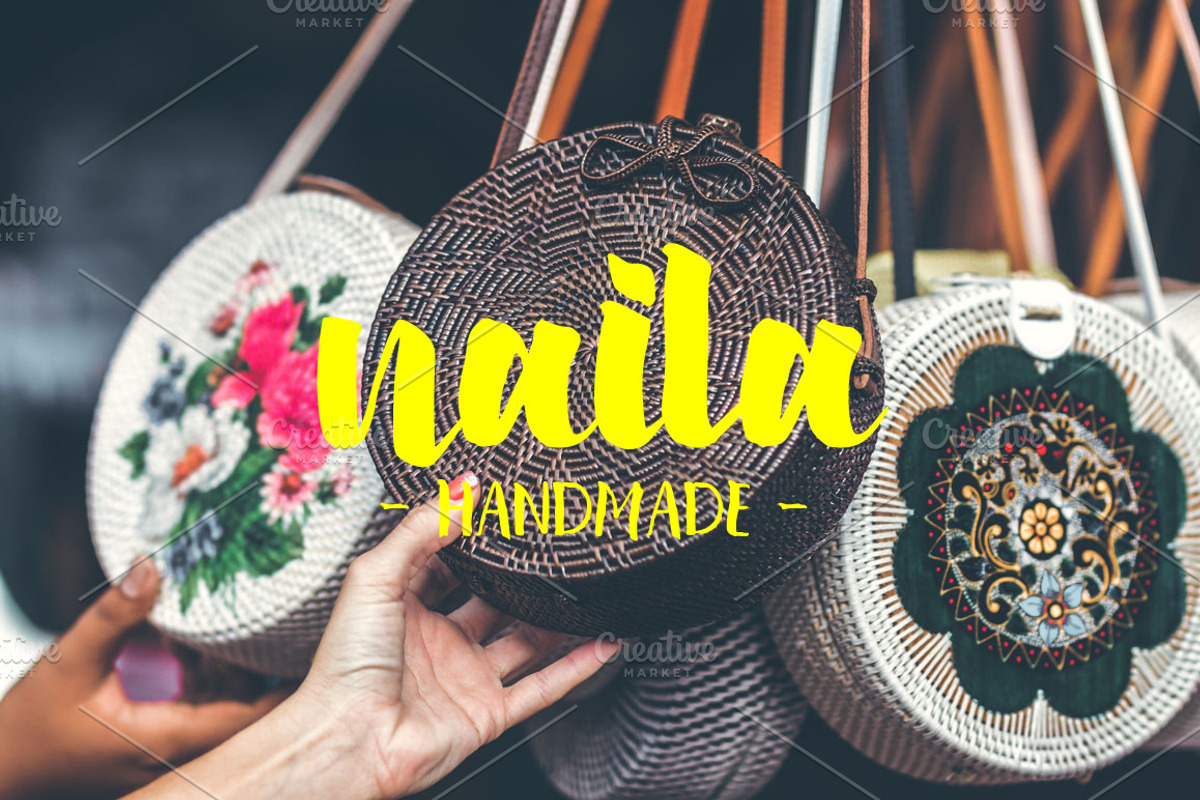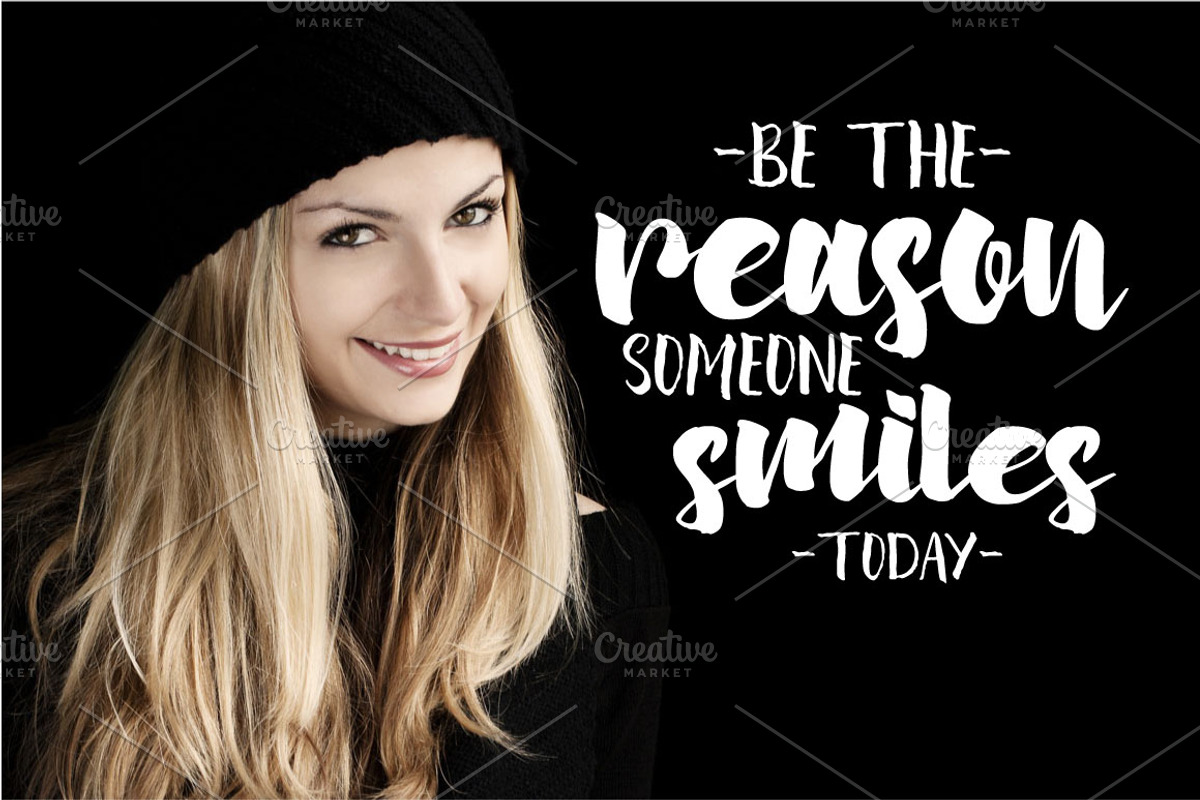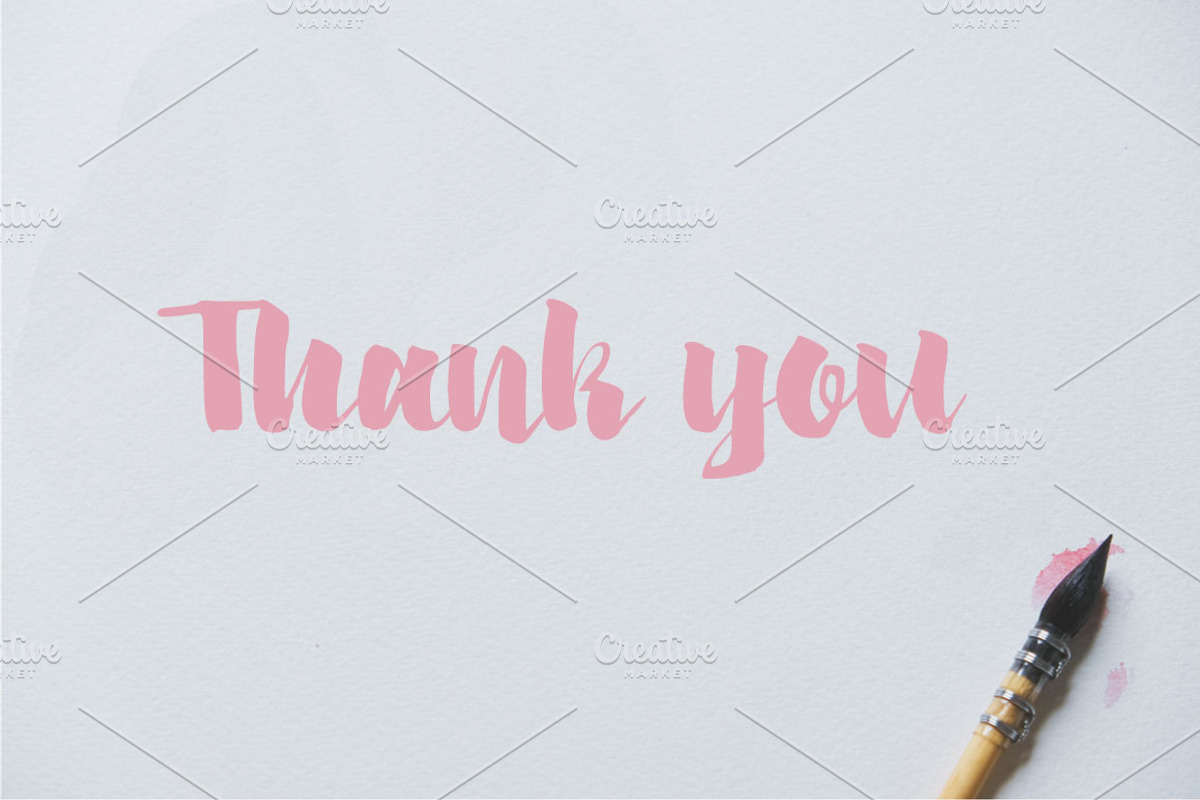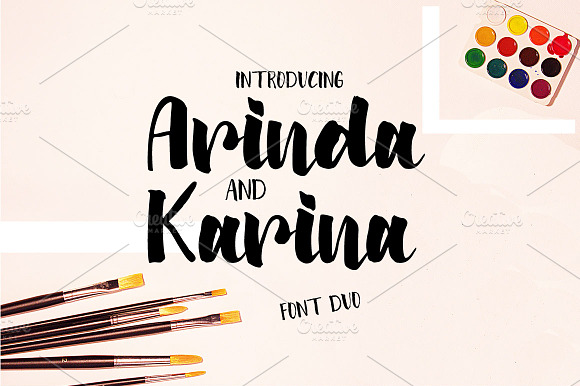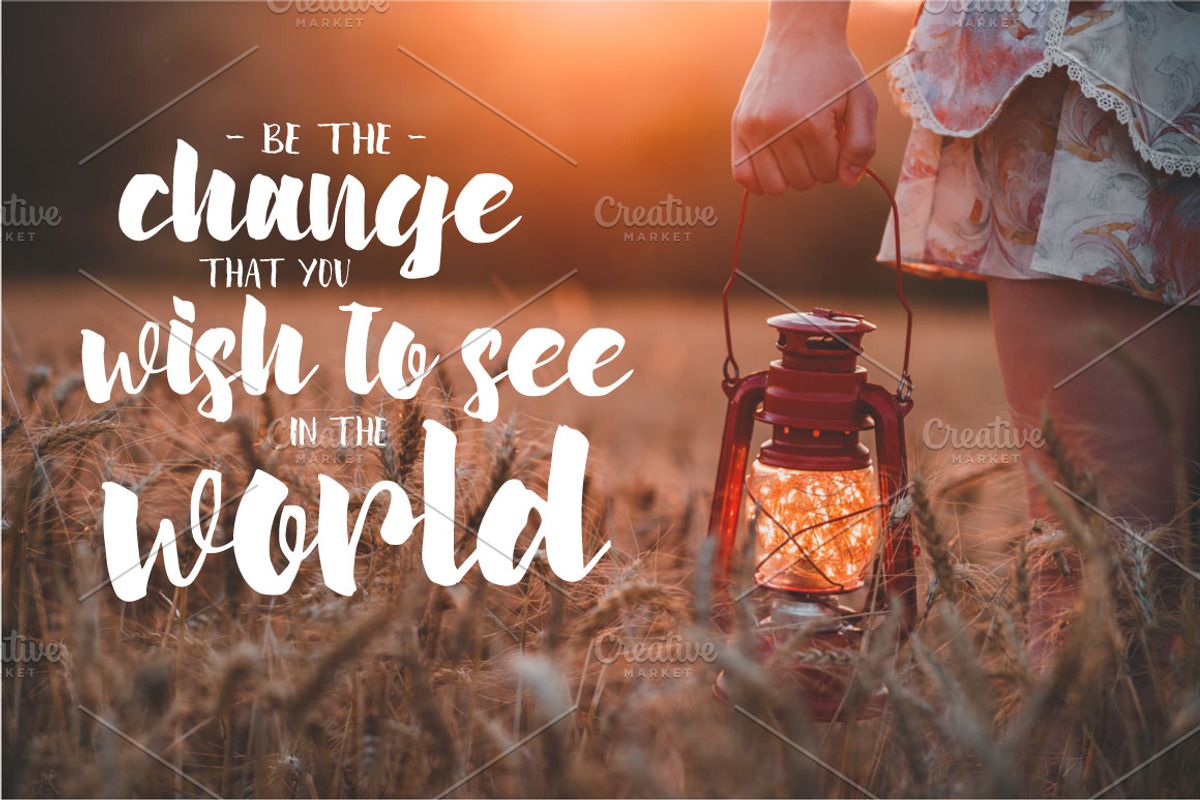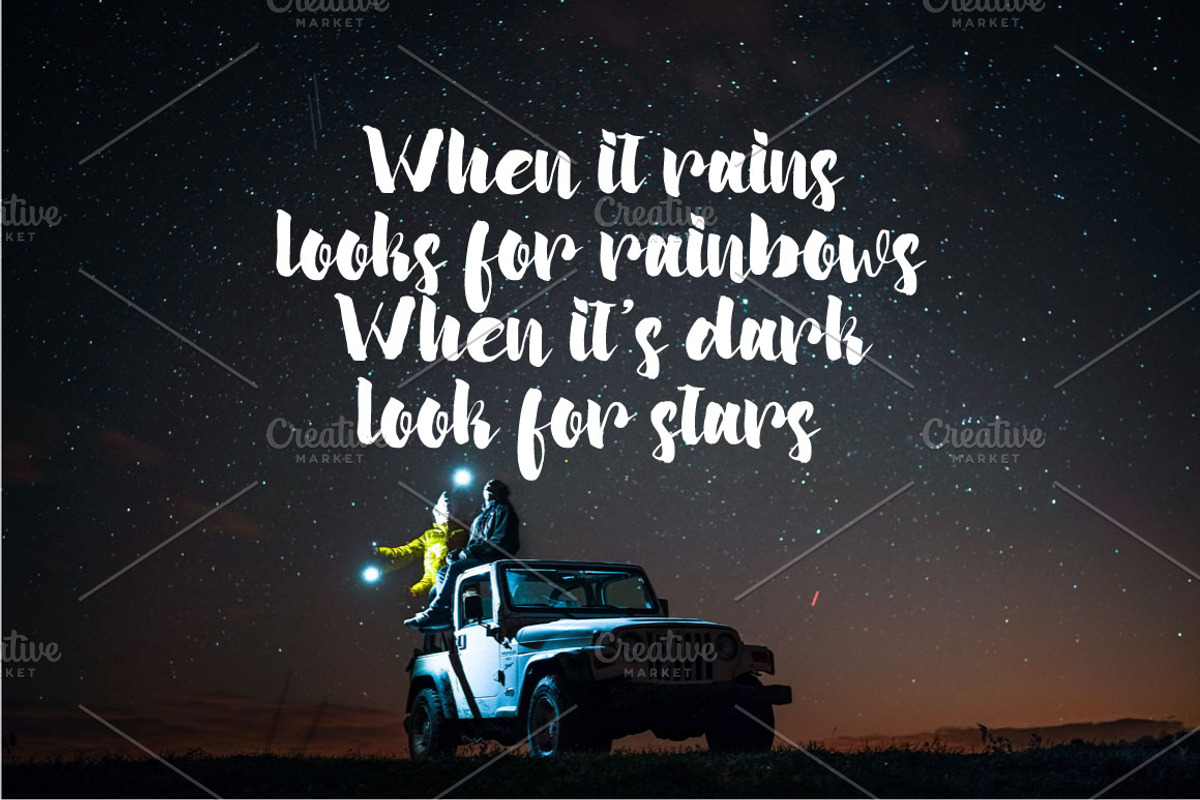
Arinda & Karina | Font Duo
Introduce, this is our latest product, we name it This product is Arinda and Karina | Font Duo.
Arinda is modern brush script with a handmade brush style, skecthing with love and tracing carefully to give best result, Karina is handmade All caps font, it's perfect to pairing with arinda,
It’s beautiful on invitations, greeting cards, branding materials, business cards, quotes, posters, and more!
Multilingual support - spread your message globally AÀÁÂÃÄÅCÇDÐEÈÉÊËIÌÍÎÏNÑOØÒÓÔÕÖUÙÜÚÛWYÝŸ?ŸÆŒßÞþ
Arinda & Karina | Font Duo by Astageni fits naturally into Branding, posters, packaging, typography.